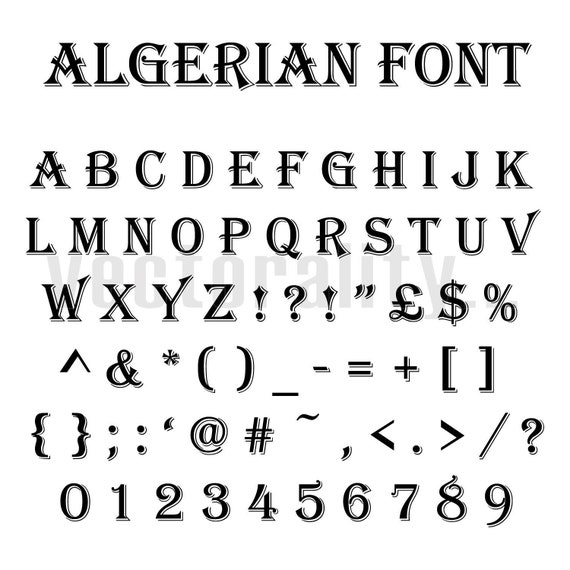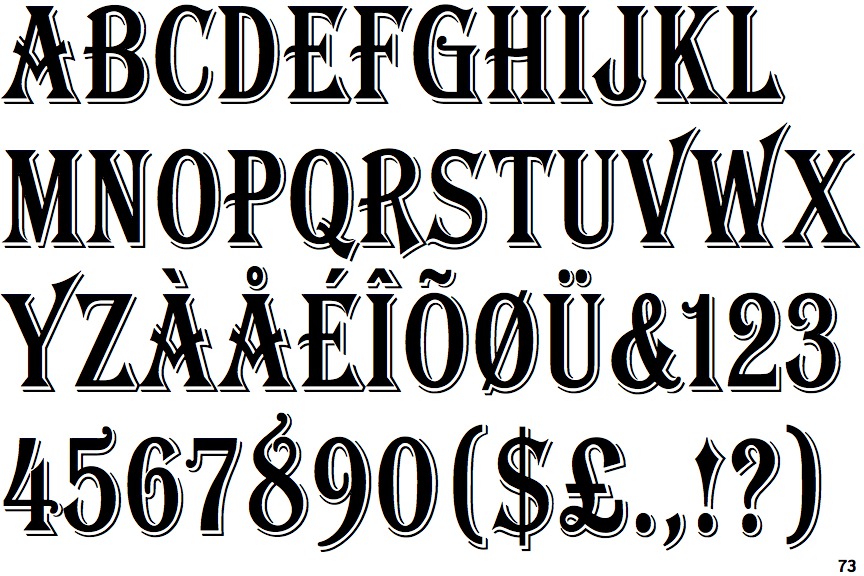
Algerian Font Style
Algerian Font Style - Click to find the best 1 free fonts in the algerian style. There are many fancy algerian texts. Algerian is a decorative serif digital font family, originally produced in the early 20th century by british foundry stephenson, blake and co. Installable on pc, mac, linux, ios, and android platforms. Algerian font changer is a specifically designed tool to change font style to whichever fancy fonts you need. Discover the free algerian regular font at free font download ! Every font is free to download! Free download of algeria font.
Installable on pc, mac, linux, ios, and android platforms. Algerian is a decorative serif digital font family, originally produced in the early 20th century by british foundry stephenson, blake and co. Every font is free to download! Free download of algeria font. Click to find the best 1 free fonts in the algerian style. Discover the free algerian regular font at free font download ! Algerian font changer is a specifically designed tool to change font style to whichever fancy fonts you need. There are many fancy algerian texts.
Installable on pc, mac, linux, ios, and android platforms. Discover the free algerian regular font at free font download ! Every font is free to download! There are many fancy algerian texts. Free download of algeria font. Click to find the best 1 free fonts in the algerian style. Algerian is a decorative serif digital font family, originally produced in the early 20th century by british foundry stephenson, blake and co. Algerian font changer is a specifically designed tool to change font style to whichever fancy fonts you need.
Algerian is a decorative serif digital font family, originally produced in the early 20th century by british foundry stephenson, blake and co. Discover the free algerian regular font at free font download ! Free download of algeria font. Algerian font changer is a specifically designed tool to change font style to whichever fancy fonts you need. There are many fancy.
Discover the free algerian regular font at free font download ! Algerian font changer is a specifically designed tool to change font style to whichever fancy fonts you need. Click to find the best 1 free fonts in the algerian style. Free download of algeria font. Algerian is a decorative serif digital font family, originally produced in the early 20th.
Every font is free to download! Discover the free algerian regular font at free font download ! Algerian is a decorative serif digital font family, originally produced in the early 20th century by british foundry stephenson, blake and co. There are many fancy algerian texts. Free download of algeria font.
Free download of algeria font. There are many fancy algerian texts. Algerian is a decorative serif digital font family, originally produced in the early 20th century by british foundry stephenson, blake and co. Installable on pc, mac, linux, ios, and android platforms. Every font is free to download!
There are many fancy algerian texts. Click to find the best 1 free fonts in the algerian style. Algerian is a decorative serif digital font family, originally produced in the early 20th century by british foundry stephenson, blake and co. Discover the free algerian regular font at free font download ! Free download of algeria font.
There are many fancy algerian texts. Click to find the best 1 free fonts in the algerian style. Free download of algeria font. Algerian font changer is a specifically designed tool to change font style to whichever fancy fonts you need. Discover the free algerian regular font at free font download !
Click to find the best 1 free fonts in the algerian style. Algerian is a decorative serif digital font family, originally produced in the early 20th century by british foundry stephenson, blake and co. There are many fancy algerian texts. Free download of algeria font. Algerian font changer is a specifically designed tool to change font style to whichever fancy.
Algerian font changer is a specifically designed tool to change font style to whichever fancy fonts you need. Every font is free to download! Click to find the best 1 free fonts in the algerian style. Algerian is a decorative serif digital font family, originally produced in the early 20th century by british foundry stephenson, blake and co.